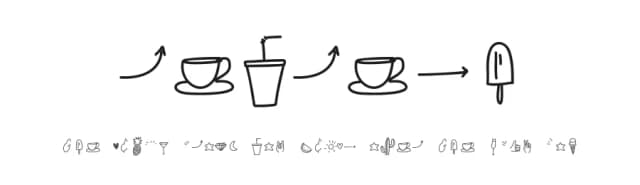
About Refresh bonus Font
Refresh bonus is a dingbat font designed by Michael Mervinetsky. It includes 55 glyphs, a regular weight, OTF (CFF) format, and 89 languages. Refresh bonus is free to download; check the license details on this page before commercial use. Dingbat fonts like Refresh bonus work best for icons, ornaments, bullet points, and decorative accents.
Refresh bonus Font is a versatile dingbats font that works for both headings and body text. Pair it with a contrasting sans-serif or serif font to add visual interest and a clear distinction between titles and body copy.
Refresh bonus Font is a dingbats typeface by Michael Mervinetsky, ideal for logos, invitations, branding, and creative projects.